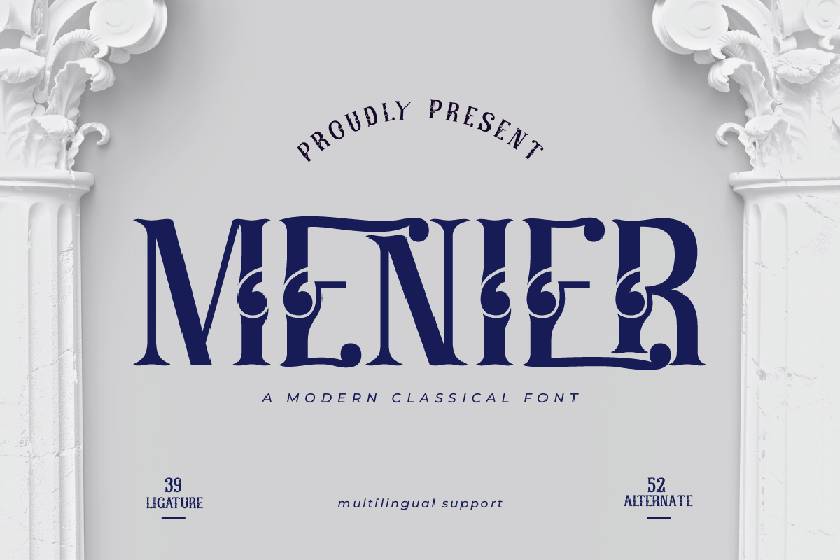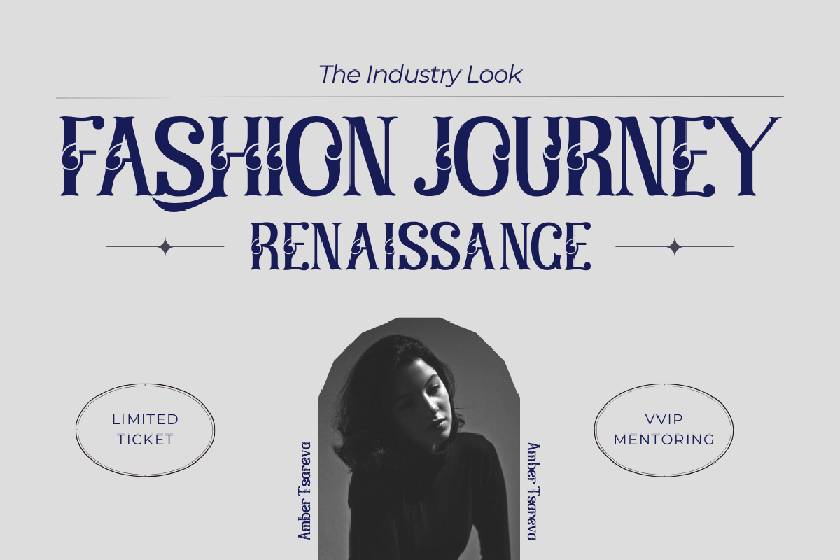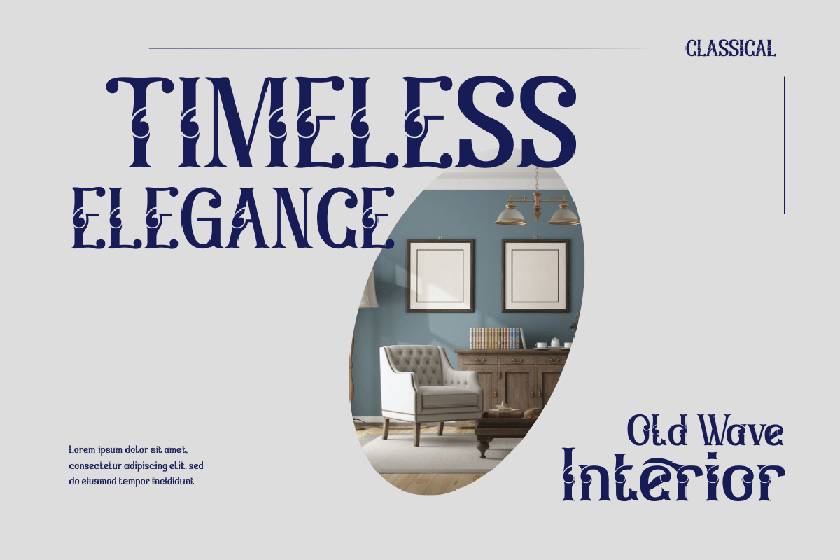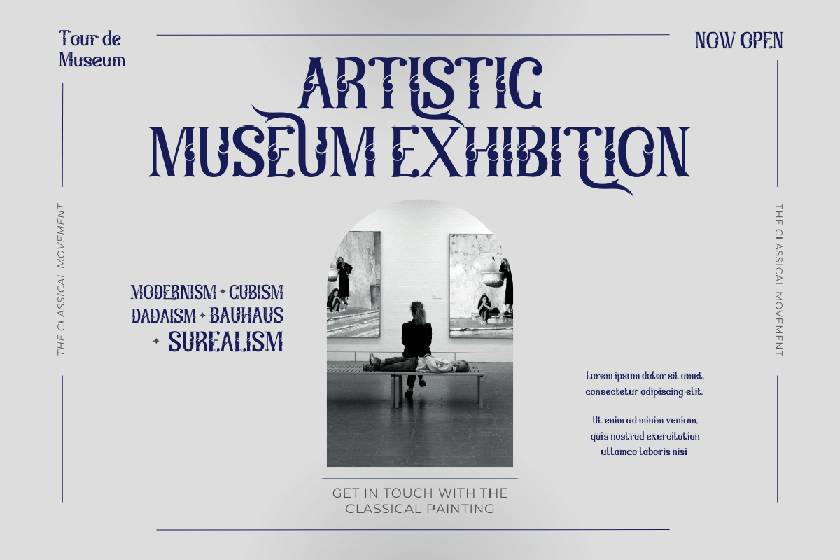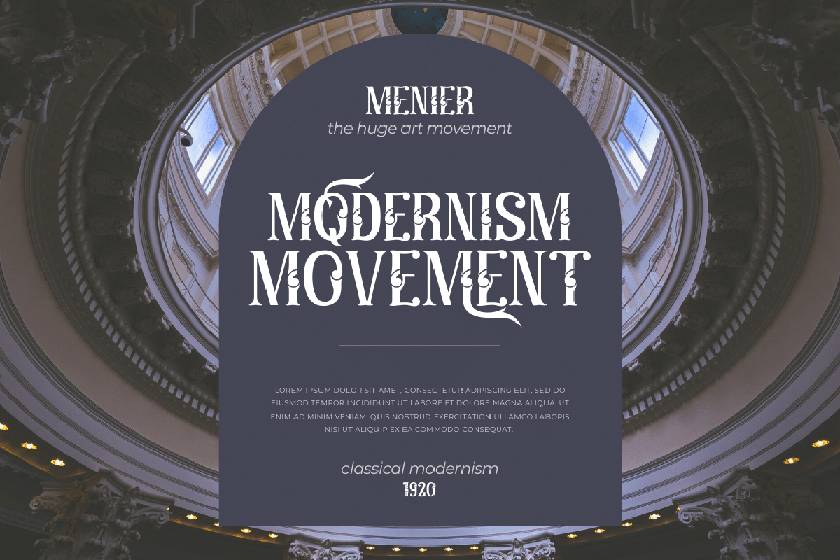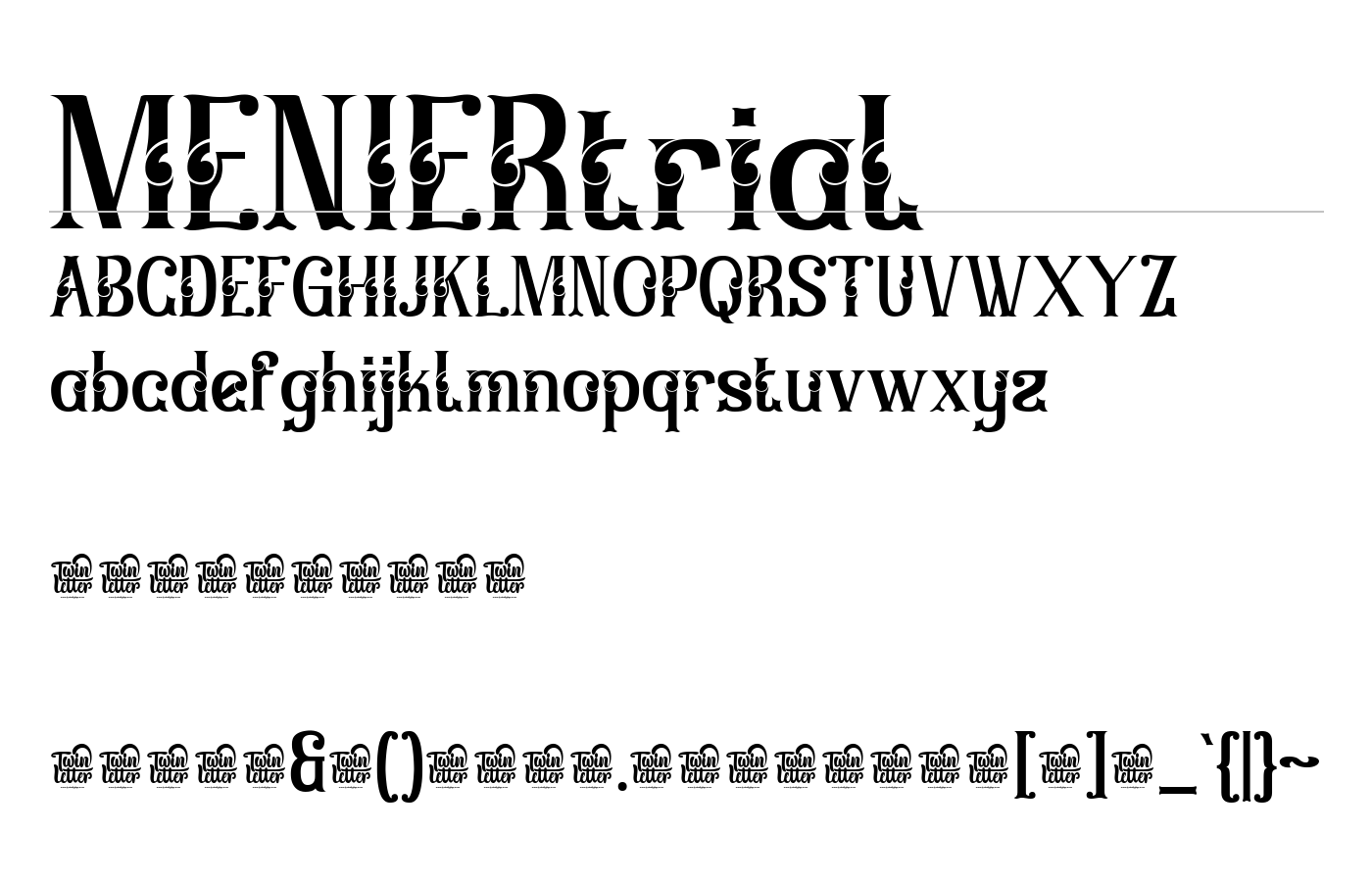
Menier is a distinctive serif font that combines a vintage, ornamental style with strong modern contrasts in stroke weight. Its tall, narrow letterforms feature elaborate swirls and sharp serifs, giving the font an elegant yet dramatic personality perfect for eye-catching headlines, luxury branding, or refined editorial design. With its unique character shapes and high contrast detailing, Menier works best where bold, artistic expression is needed to create a memorable visual impact.
Menier Font
About Menier Font